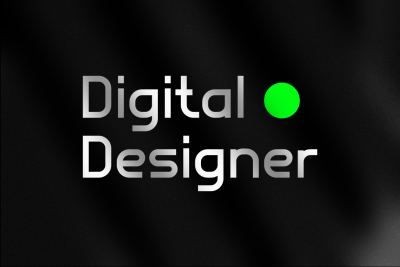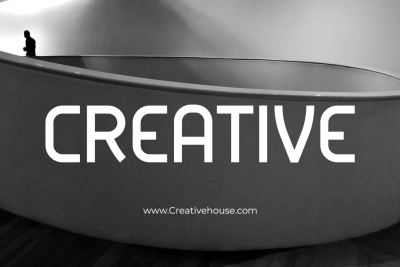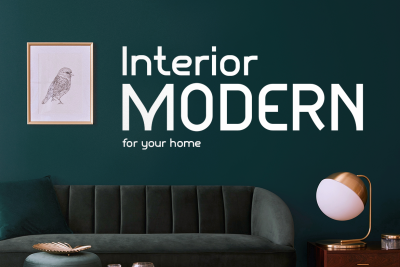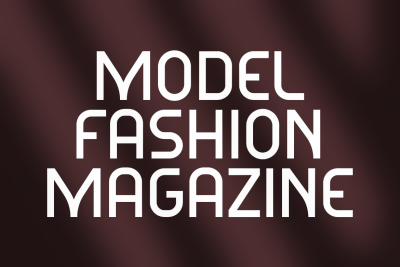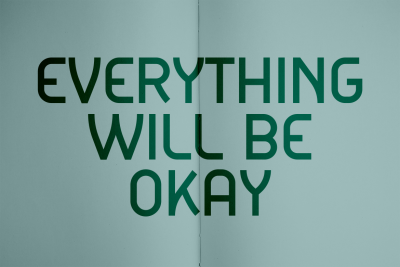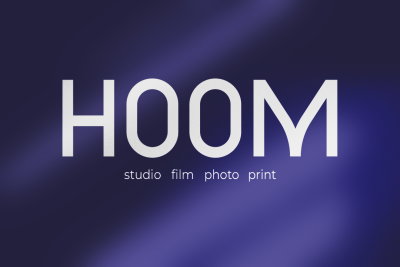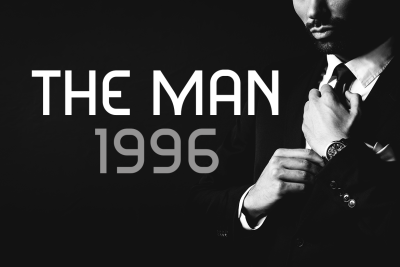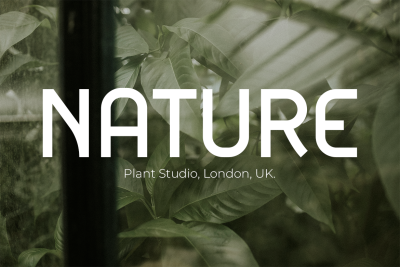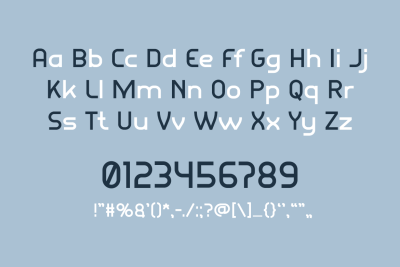
Instagram Font Ragussa is a modern and classy display typeface that combines clean lines with a refined geometric structure. This font is designed to deliver a minimalist yet elegant feel, making it perfect for creating a professional and polished aesthetic. With its rounded edges and balanced proportions, Instagram Font Ragussa stands out as a versatile choice for contemporary design needs. Whether used for logos, headlines, or social media posts, this typeface conveys confidence and sophistication.
The font features smooth curves and a harmonious alignment of characters, ensuring seamless integration into a variety of layouts. Its modern design pairs well with neutral color schemes, making it suitable for upscale branding projects. Furthermore, Instagram Font Ragussa is highly legible across different sizes and platforms, ensuring that your message remains impactful and clear. It works exceptionally well in digital spaces but also adapts beautifully to print materials like business cards, posters, or packaging.
Ragussa strikes a balance between simplicity and class, making it suitable for both minimalist and bold design styles. It is a font that can transform everyday visuals into striking works of art. The adaptability of this typeface ensures it can cater to the evolving demands of the modern creative market.
Instagram Font Ragussa Who is it suitable for?
Instagram Font Ragussa is perfect for a wide range of professionals and creatives who aim to achieve a sleek, modern look in their designs. It is especially ideal for entrepreneurs and businesses in fashion, beauty, and interior design industries. Whether you’re creating branding materials, product packaging, or marketing campaigns, this font will elevate your visuals with its stylish, clean aesthetic.
Graphic designers can use Ragussa for creating logos, magazine layouts, and digital ads. Social media influencers, particularly those focusing on lifestyle, design, or minimalism, can enhance their posts and stories with this typeface. It is also an excellent choice for marketers looking to produce high-quality promotional materials that resonate with sophisticated audiences.
Additionally, wedding planners, photographers, and event stylists can use Ragussa to create elegant invitations, portfolios, or signage. Its professional yet approachable vibe makes it a versatile tool for designers aiming to leave a lasting impression. Whether for web, print, or social media, this font delivers the perfect mix of modernity and elegance, ensuring that your projects stand out effortlessly.